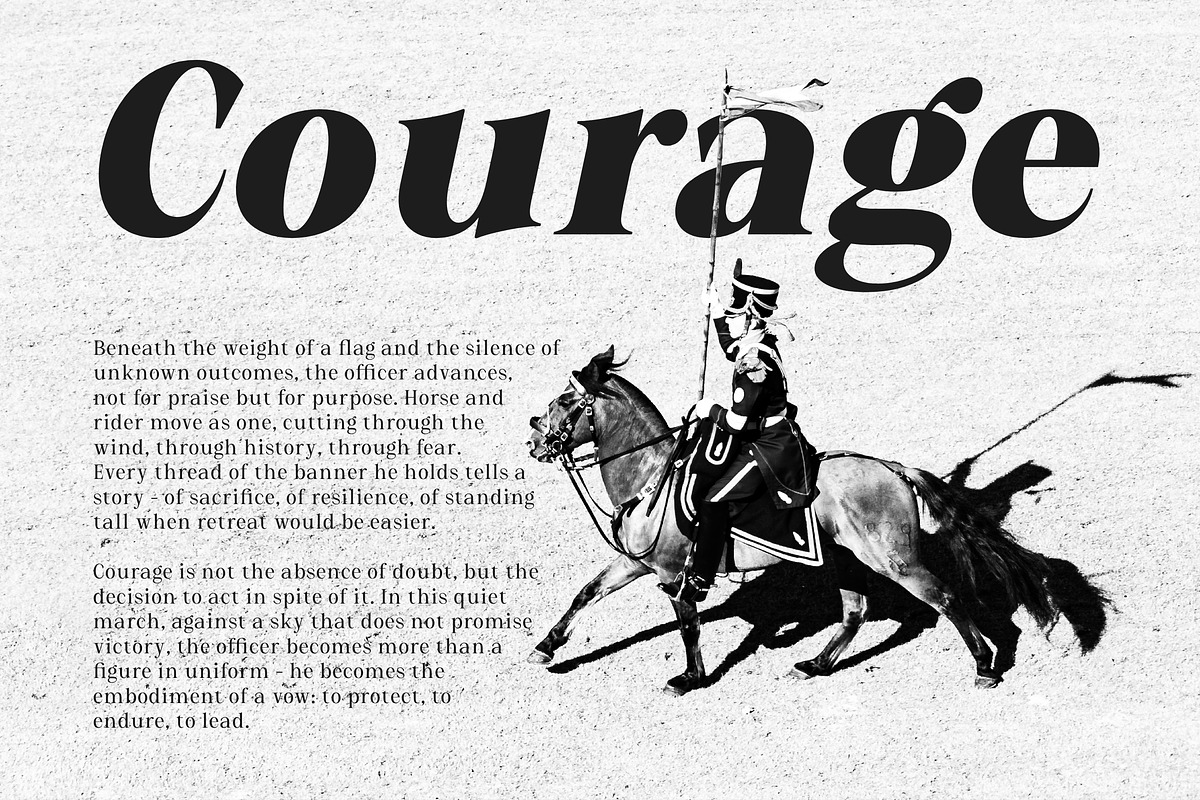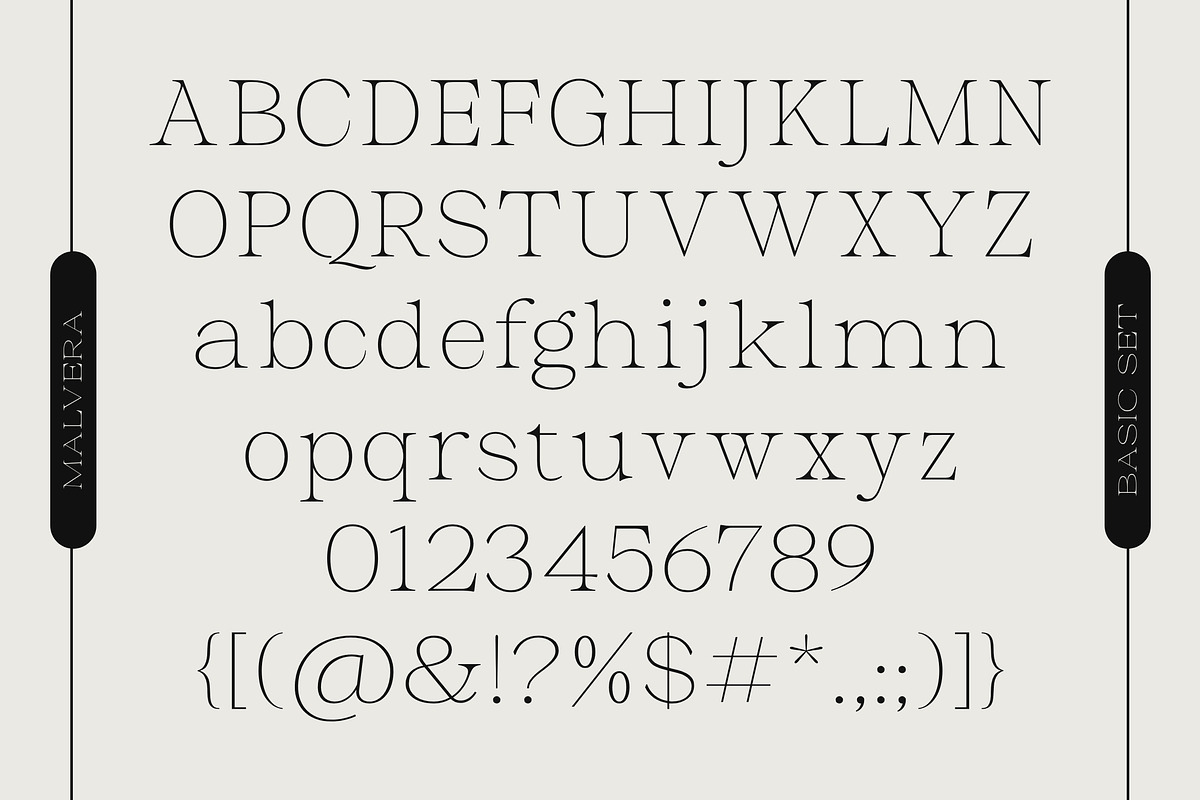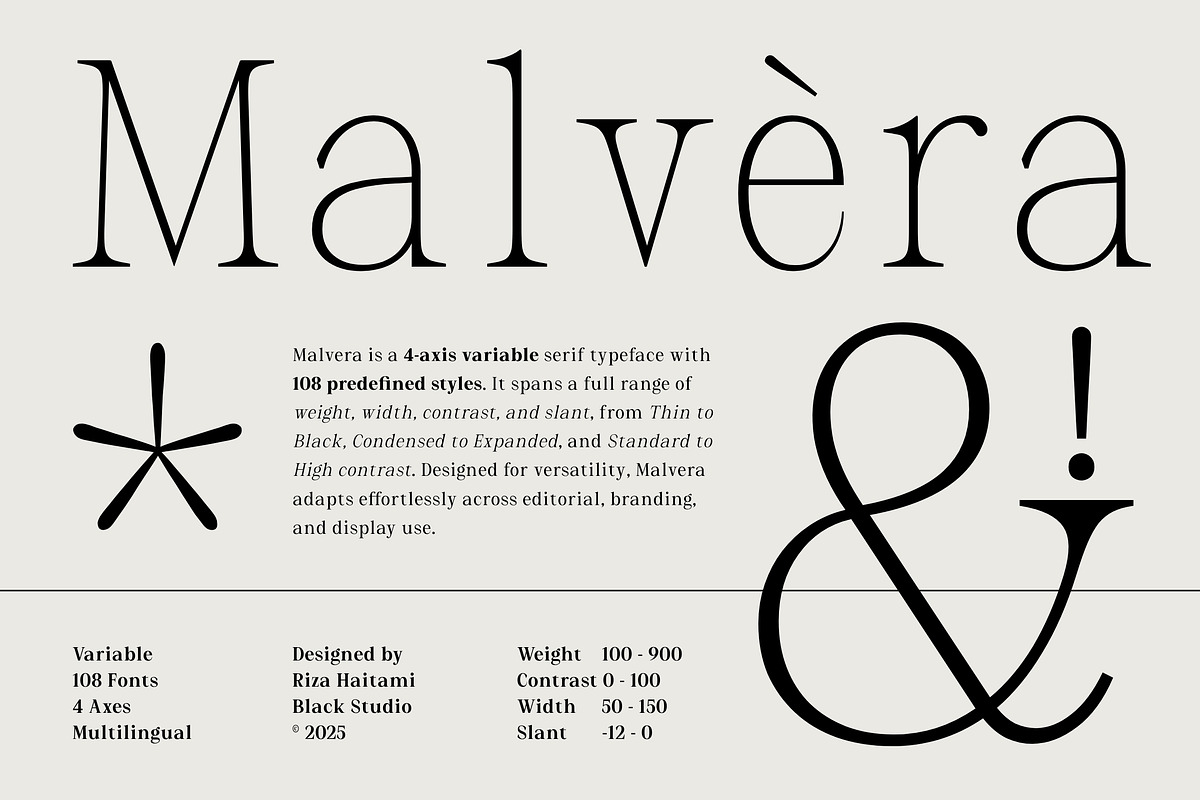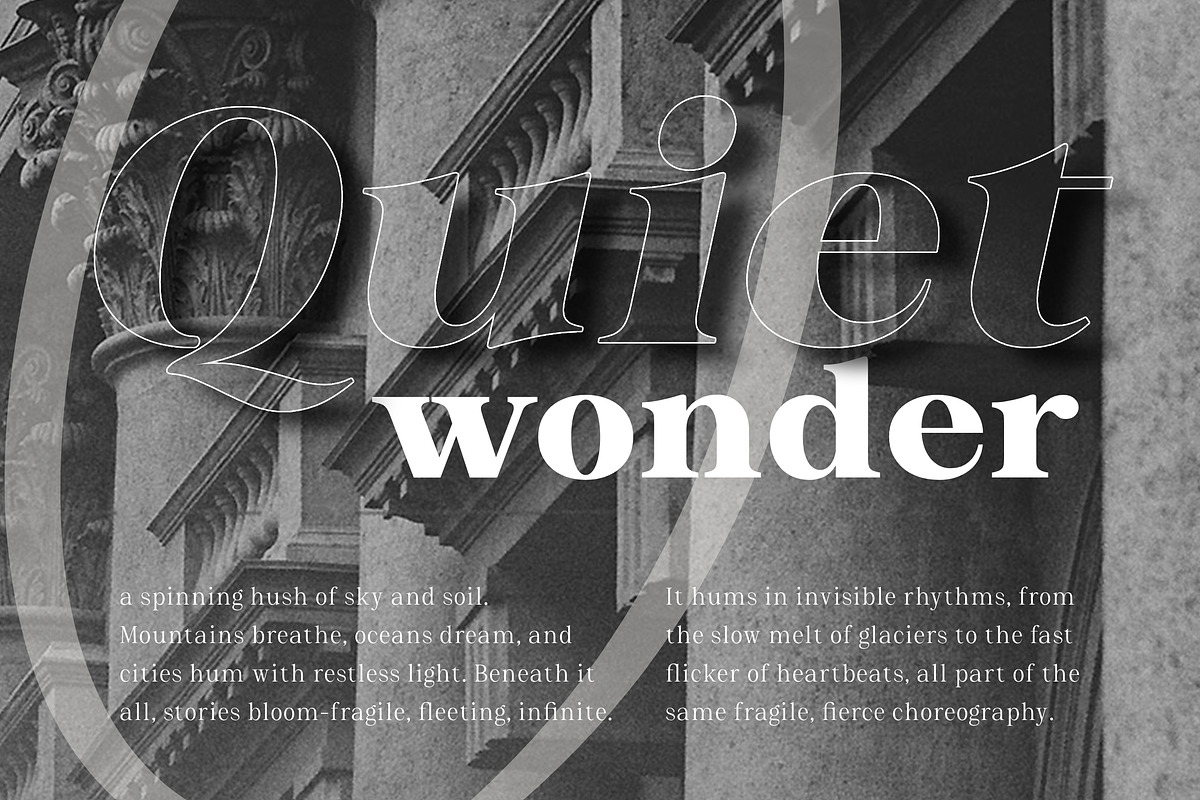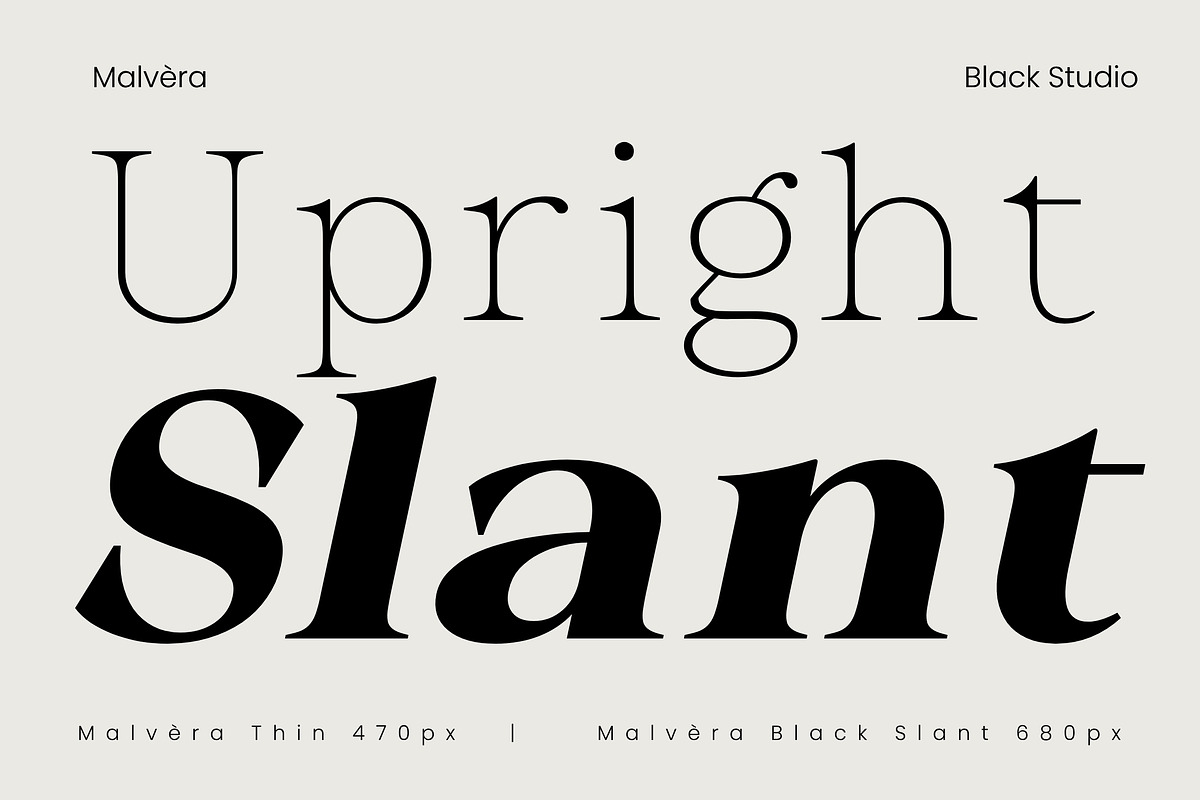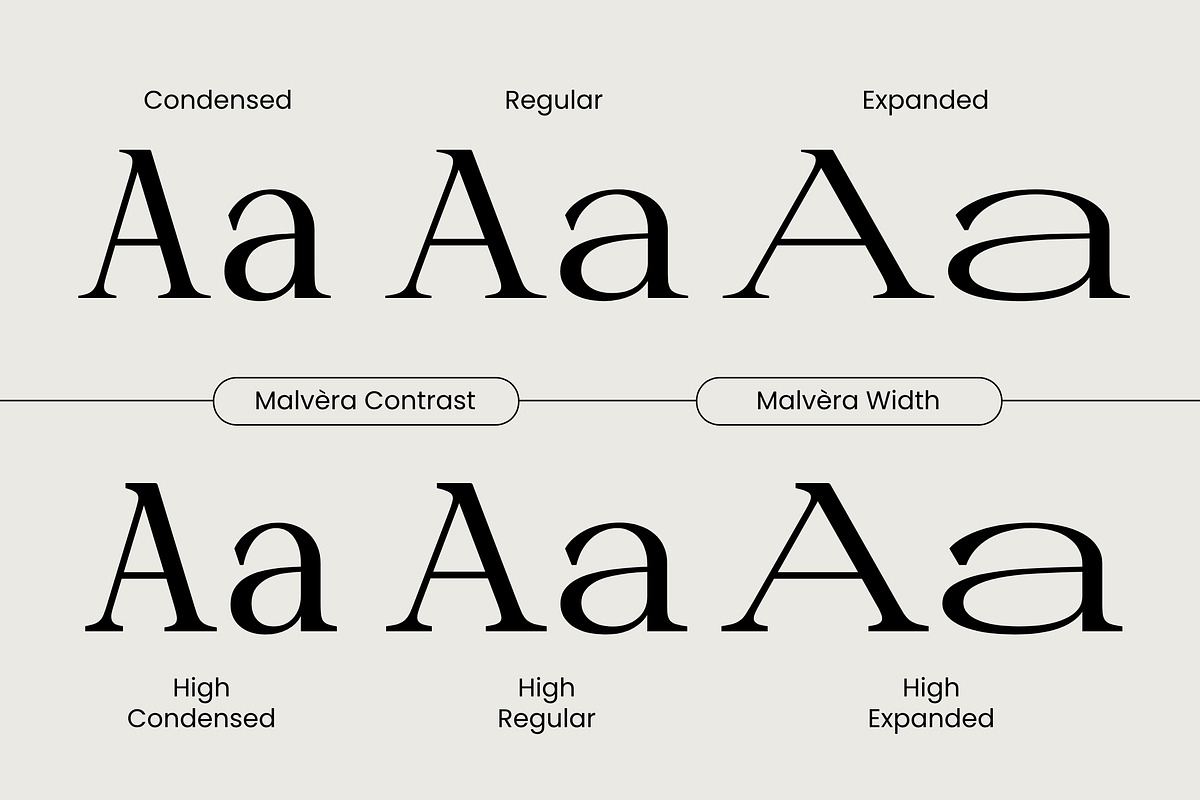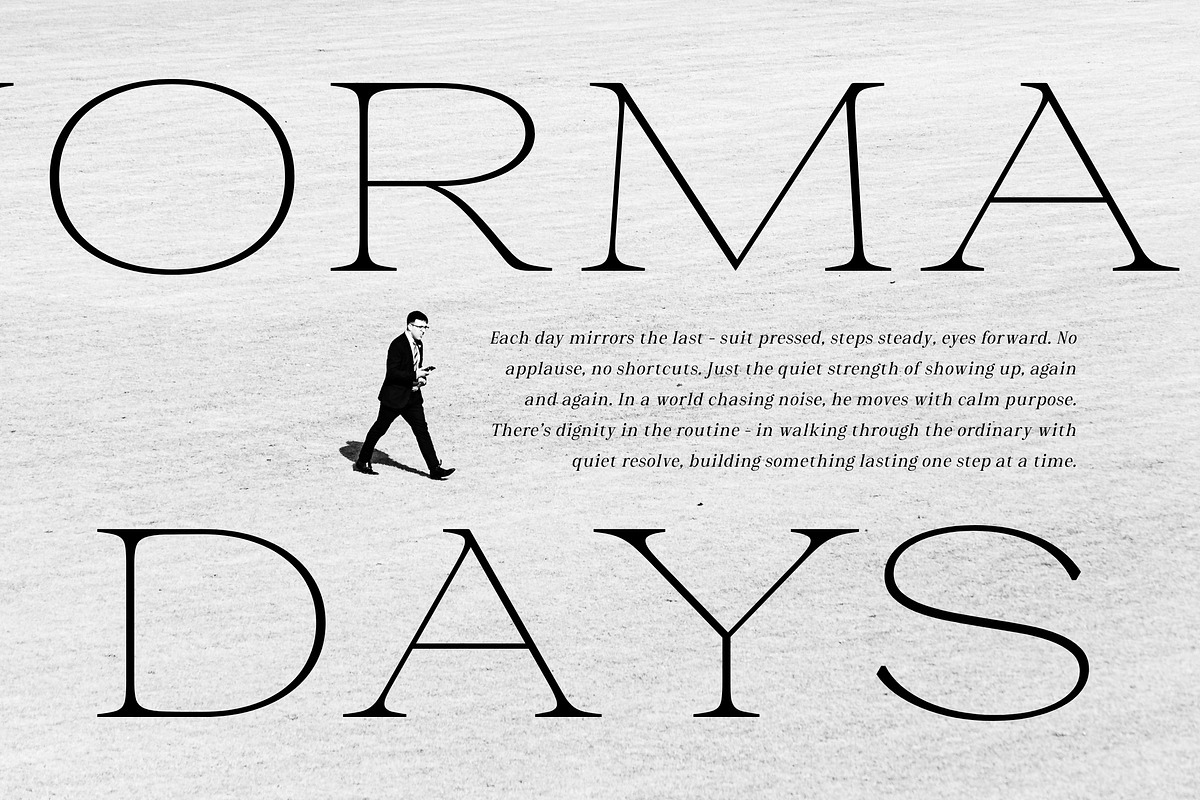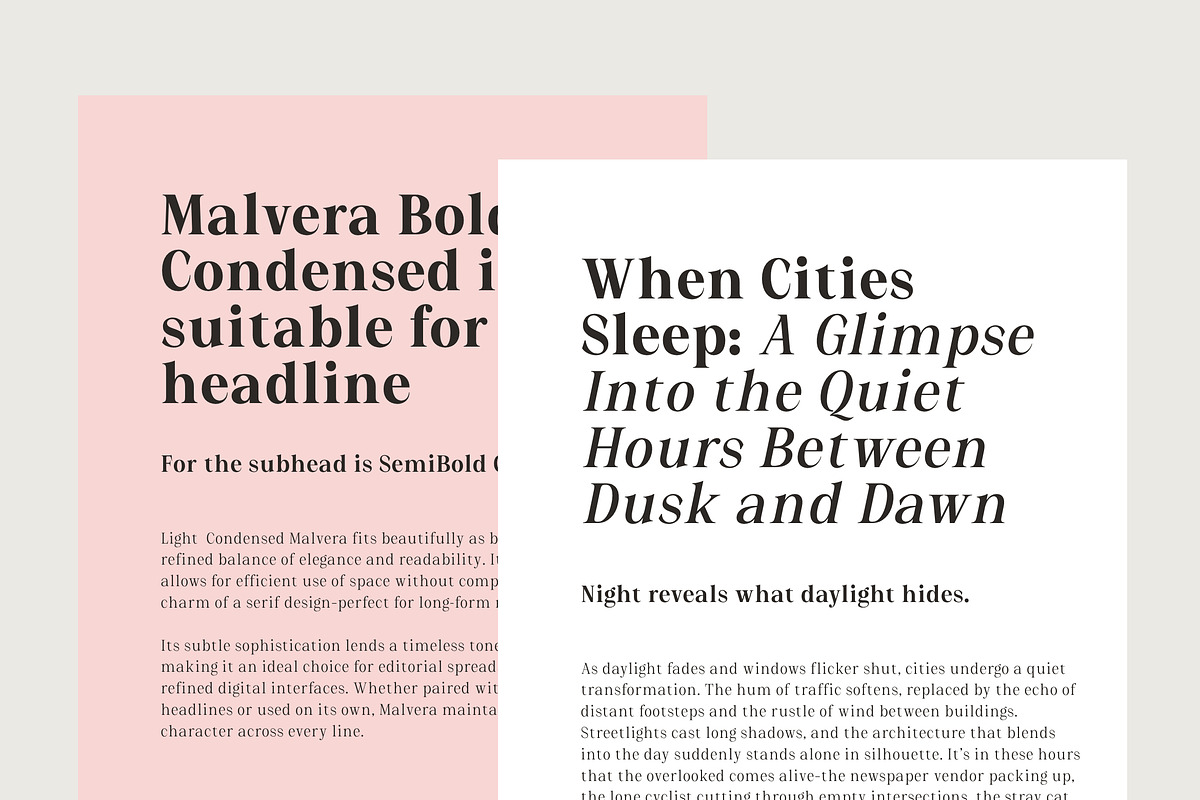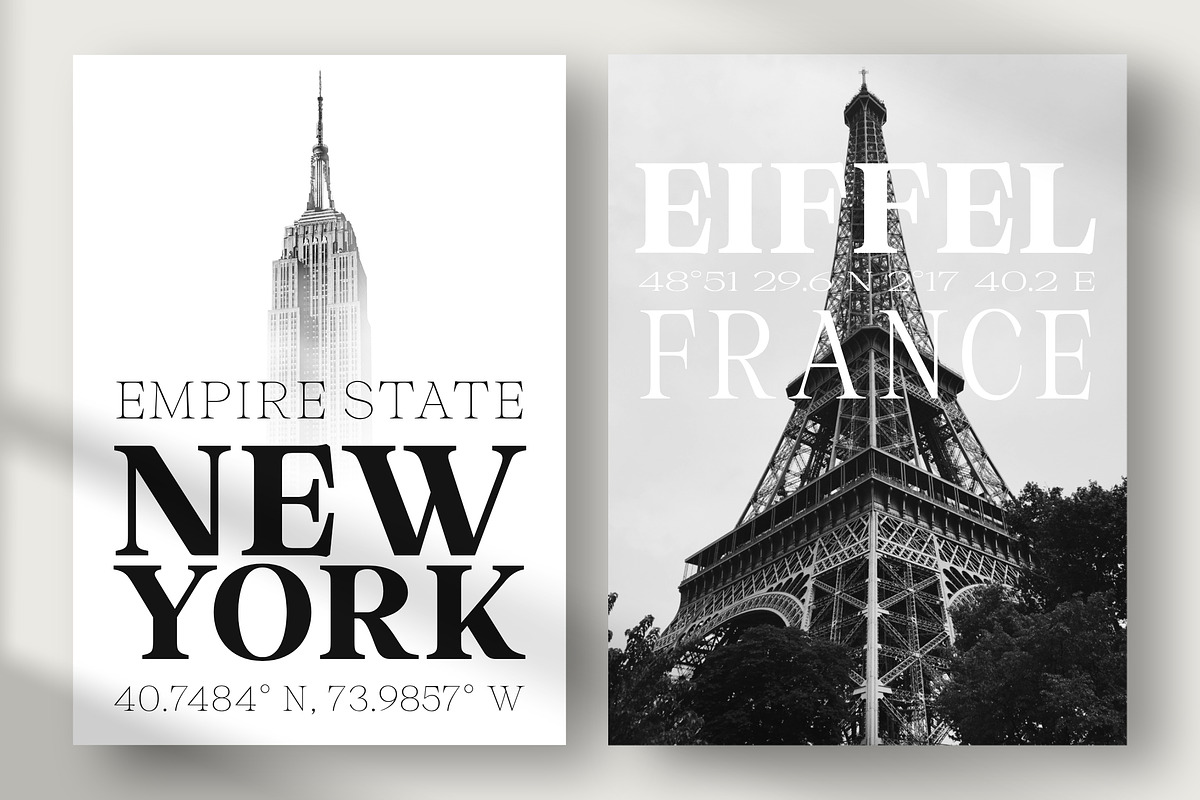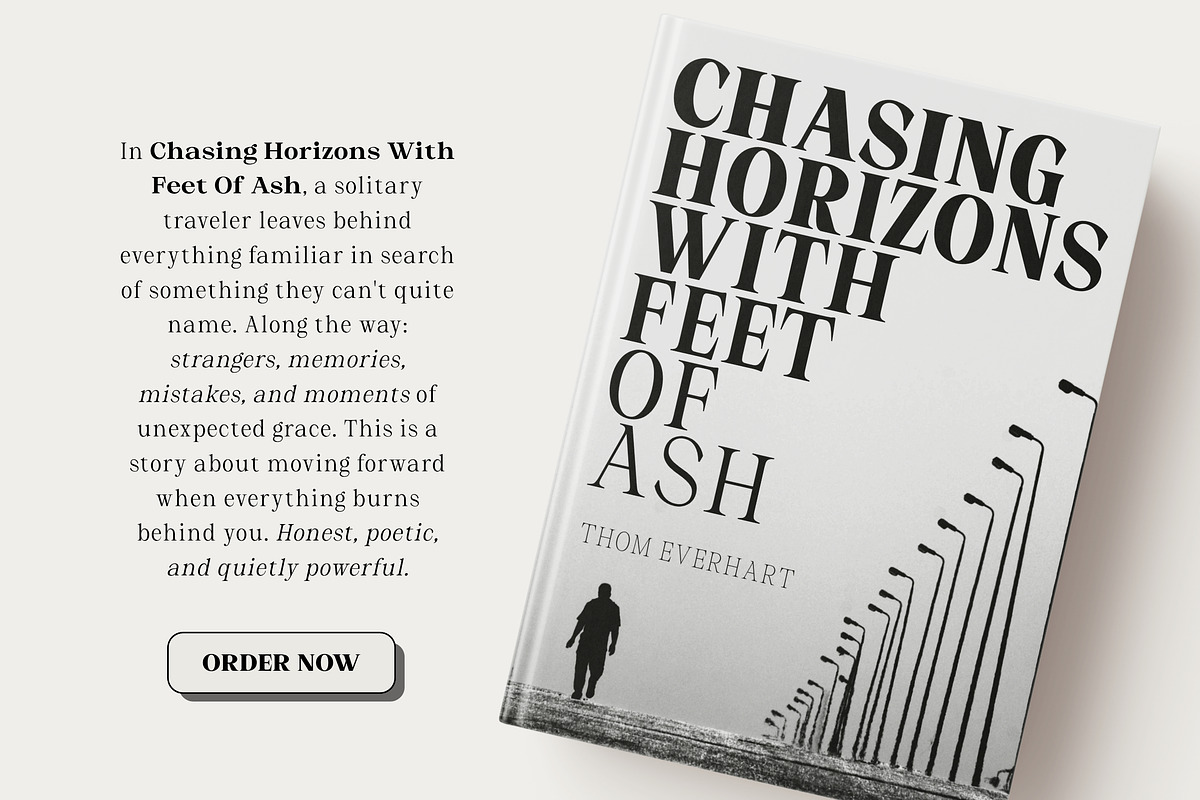
Malvera
Malvèra is a refined variable serif typeface that blends timeless elegance with modern versatility. With 108 styles across four axes—weight, width, contrast, and slant—it adapts seamlessly from Thin to Black, Condensed to Expanded, and Low to High contrast.
Designed with classic proportions, elegant serifs, and contemporary detailing, Malvèra works beautifully in editorial design, branding, book typography, and sophisticated display settings. Multilingual support ensures global usability, while its variable design offers full creative control.
Malvèra is more than a typeface—it’s a complete typographic system built for designers who seek both tradition and innovation.
Typeface Features:
4 Axes: Weight, Contrast, Width + Slant
Complete Collection: 108 Styles + Variable Font
Latin Language support including
Kerning